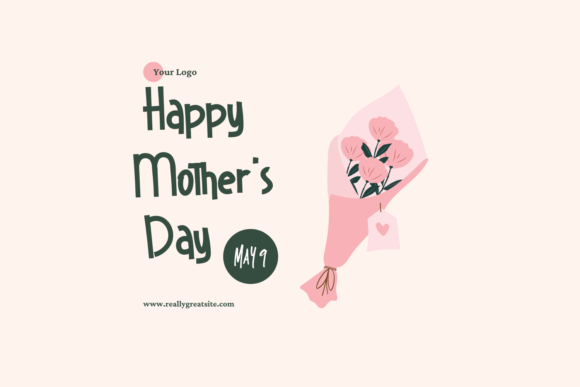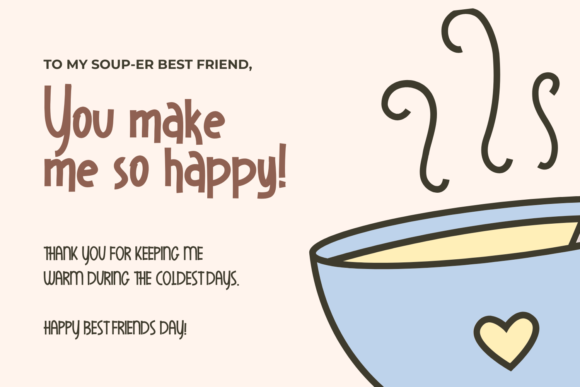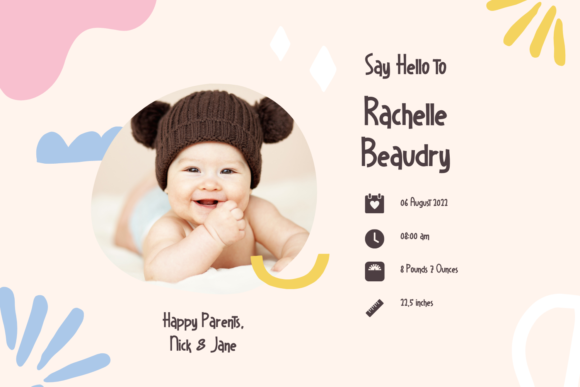
Unlocking Creativity with Bihunts Font
Who hasn’t sat at a desk, staring at a blank sheet of paper, waiting for inspiration to strike? For designers, this moment is all too familiar. But what if you could tap into a font that captures the essence of playfulness and authenticity? Enter Bihunts Font, a display font that embodies the perfect blend of fun and friendliness.
Bihunts Font is designed specifically for children’s activities and school projects, making it an invaluable tool for educators and creatives alike. Its unique style is both engaging and approachable, ensuring that your message is conveyed with clarity and personality. Whether you’re designing a children’s book, a school logo, or a marketing campaign, Bihunts Font is the perfect choice to bring your vision to life.
Bihunts Font Key Features
- Font Style: Bihunts Font is a unique, handwritten font with a mix of modern and vintage elements, perfect for creative and artistic projects.
- Unique Characteristics: Bihunts Font features a unique blend of handwritten and printed elements, giving it a distinctive and eye-catching look.
Bihunts Font Review
I recently had the chance to work with the Bihunts font, and I must say it’s a unique and interesting addition to my design toolkit. ✨ One of the things that really stands out about this font is its versatility. It works well in both digital and print formats, and its bold lines and curves make it perfect for headings and titles.
Another aspect of the Bihunts font that I appreciate is its ligatures feature. This allows for seamless connections between letters, creating a more polished and refined look. ✨ Additionally, the font’s variable font capabilities make it easy to adjust the weight, width, and other characteristics to suit the specific needs of a project.
However, there are some limitations to the Bihunts font that are worth noting. ⚠️ For one, the font may not be as readable at smaller sizes, which could be a concern for digital applications. Additionally, the font’s italic styles may not be as consistent across different platforms.
Overall, I’m impressed with the Bihunts font and its potential to add a touch of elegance and sophistication to designs. While it may not be perfect, its strengths outweigh its weaknesses, making it a valuable addition to any designer’s toolkit.
Key Features:
- ✨ Versatile and adaptable for digital and print formats
- ✨ Includes ligatures feature for seamless letter connections
- ✨ Supports variable font capabilities for easy adjustments
- ⚠️ May not be as readable at smaller sizes
- ⚠️ Italic styles may not be consistent across platforms
Bihunts Font Practical Application Guide
Tips and Tricks
To get the most out of the Bihunts Font, experiment with different font sizes, colors, and styles to achieve a unique look. Use it for headings, titles, and body text to create a consistent design aesthetic.
The Bihunts Font is ideal for creative projects, such as graphic design, digital art, and typography. Use it to add a touch of elegance and sophistication to your designs.